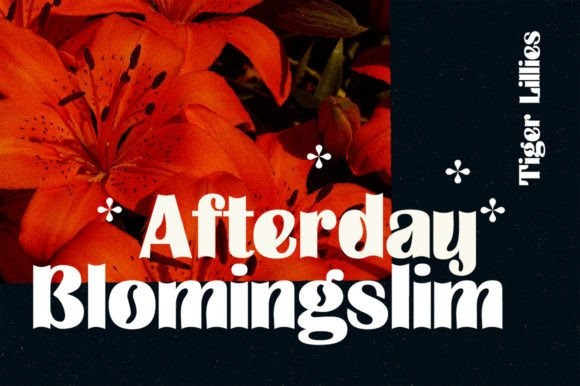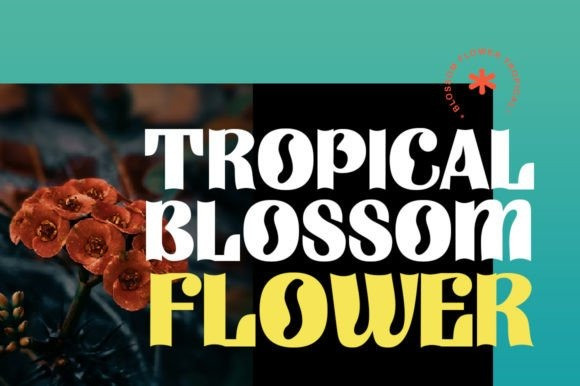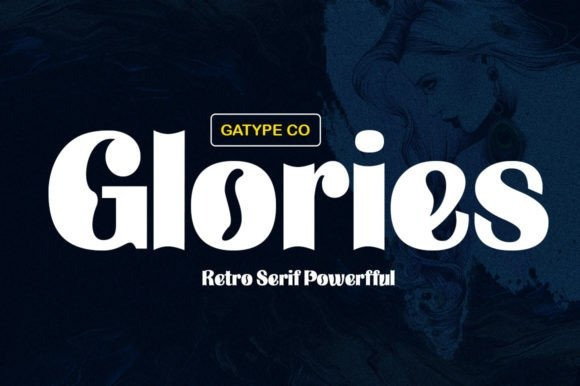
Glories Font
Glories Retro Font is a versatile elegant, graceful and timeless font with timeless classic appeal and superb precision for you to incorporate into your designs! Each letter has been hand drawn and crafted with great care. The different weights provide a variety of options that will help you find the best spelling for your project.